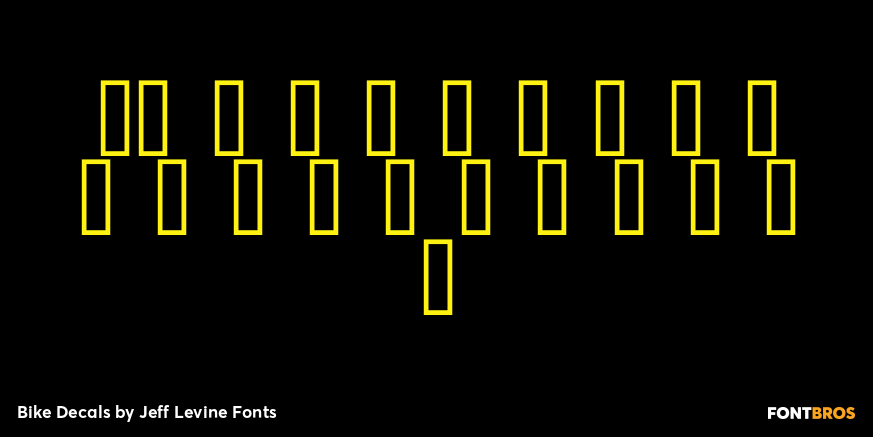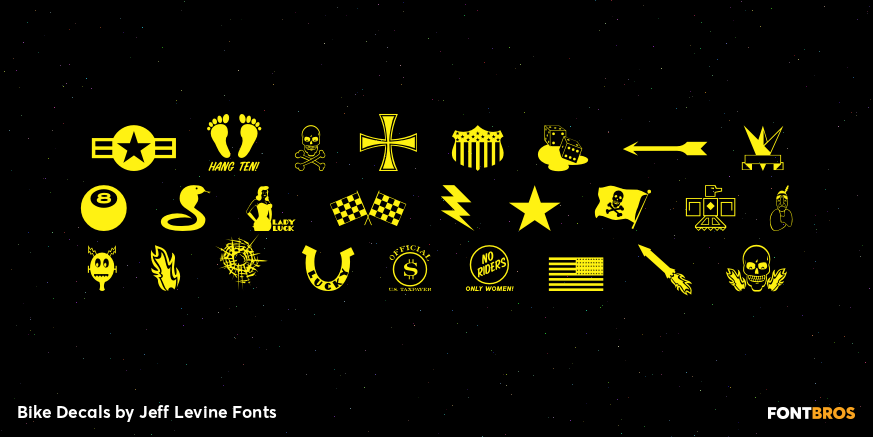
Bike Decals
Bike Decals JNL captures the fun and nostalgia of the 1950s and 1960s when kids all around the country ran to their local five and dime or hobby store to purchase water applied decals. The "cool" thing would be to customize your bike, little red wagon or anything that would be fair game with various racing symbols, weird space creatures or other unusual images.
In this font, Jeff Levine has put his own spin on some of the classic designs of yesteryear, drawing from scratch some of the most popular of their day.